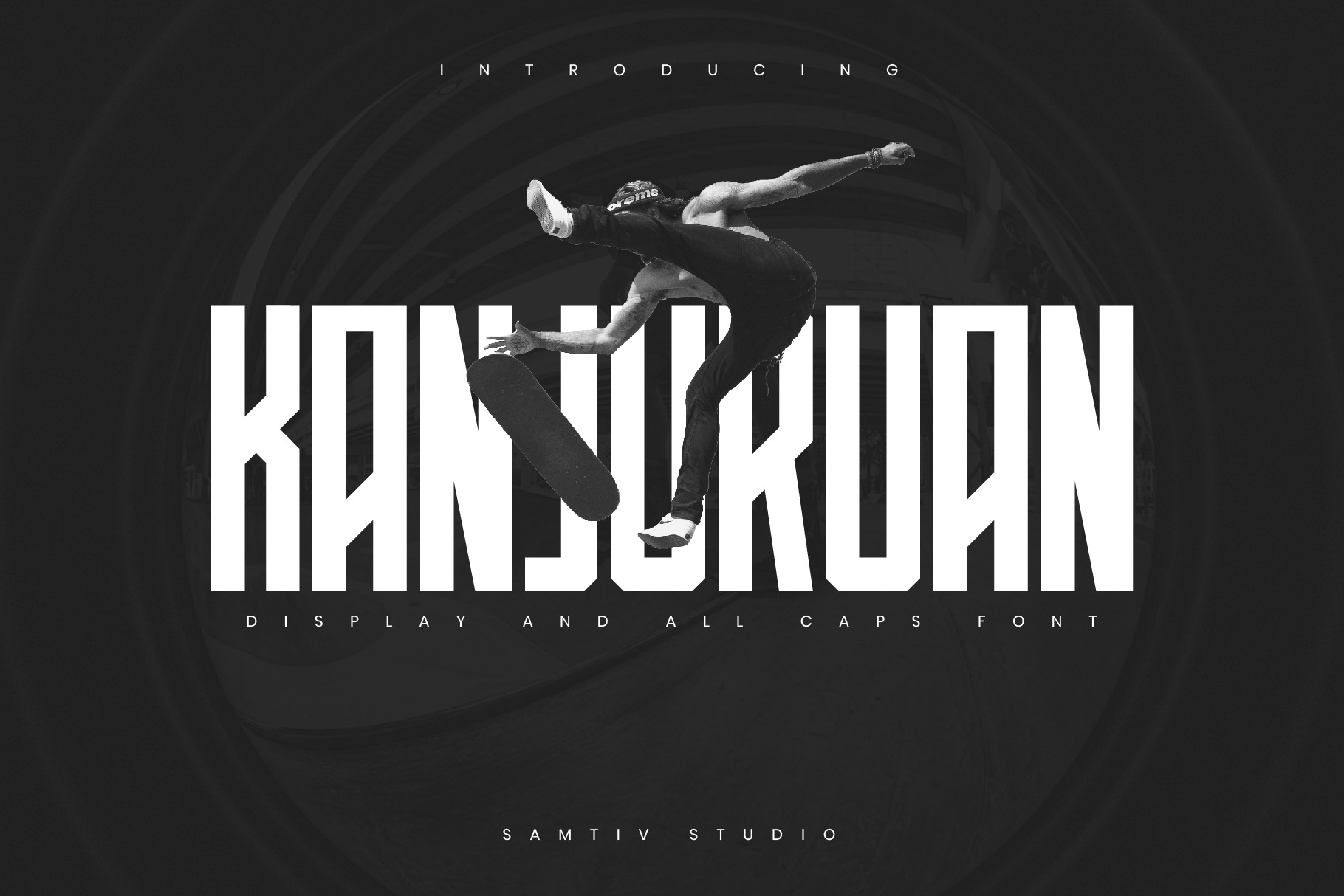
KANJURUAN - SPORT FONT DISPLAY
KANJURUAN - Sport Font
KANJURUAN is an awesome sports font with wide italic fonts, modern cutouts, and a dynamic slant. Ideal for fast car racing sports titles, running matches, cycling, automotive game logos, and monograms or other modern dynamic text. Bigar compares favorably with legibility and size, creating the effect of power and speed. Designed as a fast and dynamic font, but with a slightly different font design, check it out and grab it right away.